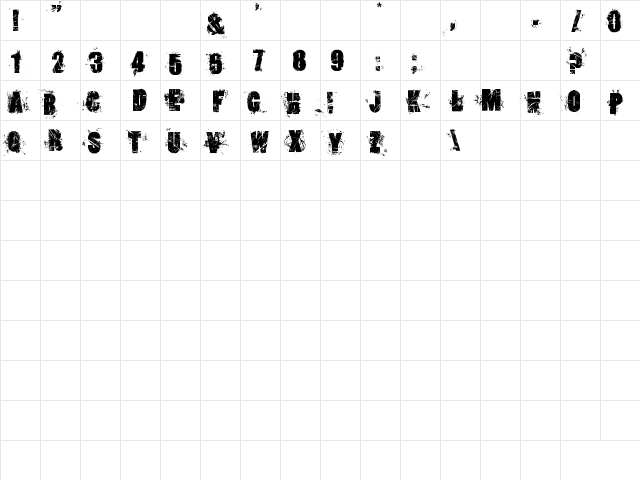
loserboi grunge Regular
Design Context for loserboi grunge Typeface
loserboi grunge embraces imperfection — its rough, textured character adds raw authenticity to designs that want to feel lived-in and unconventional.
A strong fit for alternative music projects, graffiti-adjacent design, and anything that deliberately resists polish.
Pro Tip: Use loserboi grunge at larger sizes where the texture and irregularity of each letterform can be clearly seen — it loses its character at small sizes.